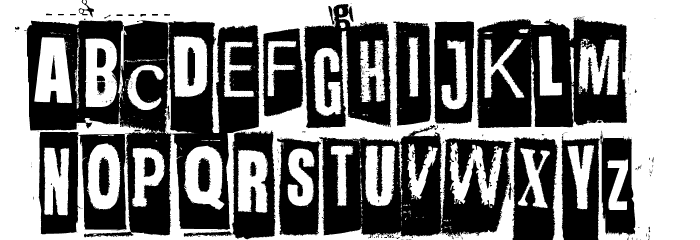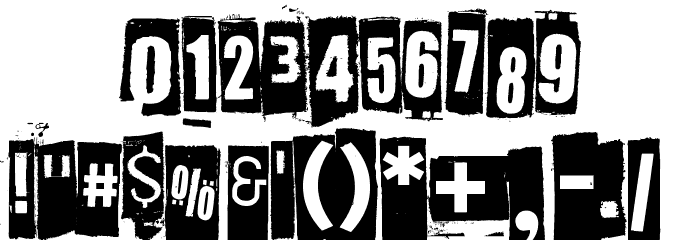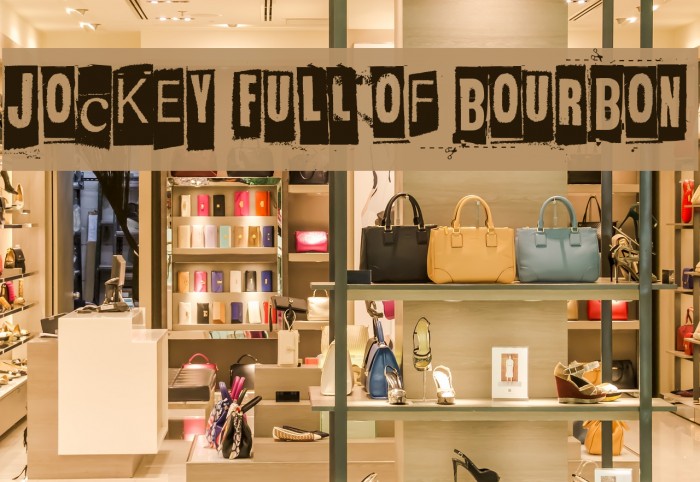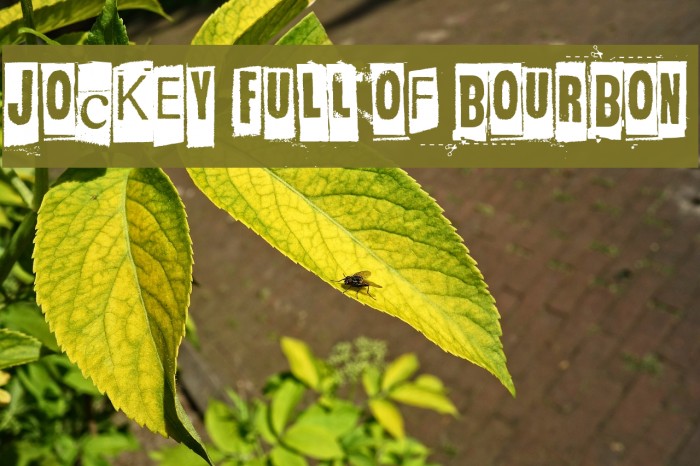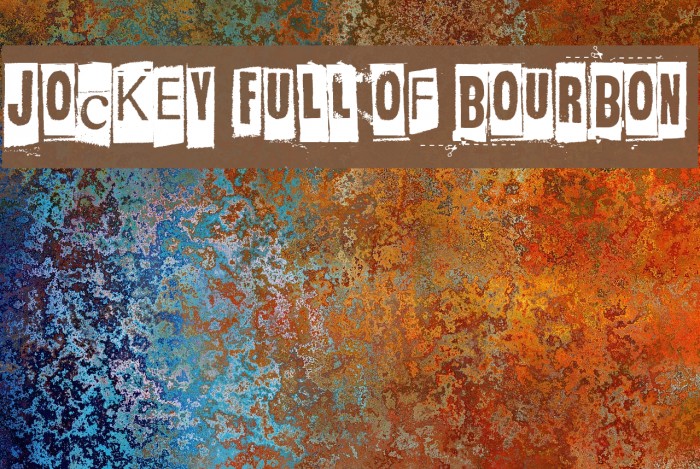
Jockey Full Of Bourbon Font
This font exudes a bold, distressed aesthetic reminiscent of vintage ransom notes or old-school punk rock flyers. Each character is encased in a rough, irregular block, giving it a unique, hand-crafted appearance. The letters are uppercase and feature a mix of solid and hollow designs, adding to the chaotic yet artistic vibe. The numbers and special characters follow the same style, maintaining consistency across the set. The overall look is gritty and rebellious, perfect for projects that require a touch of edgy, retro flair.
A bold, distressed font with a vintage, rebellious style.
- Proposed Projects: Ideal for music posters, album covers, zines, or any project needing a punk or retro aesthetic.
- Overall Style: Vintage, Rebellious